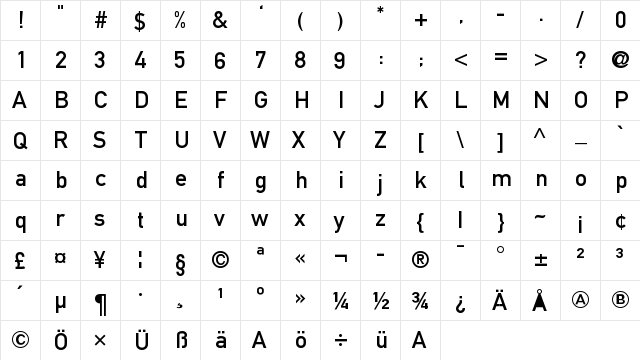
DIN 1451 Mittelschrift DB Regular
Design Context for DIN 1451 Mittelschrift DB Typeface
DIN 1451 Mittelschrift DB is a composed and adaptable typeface that performs quietly and consistently across a wide range of design contexts.